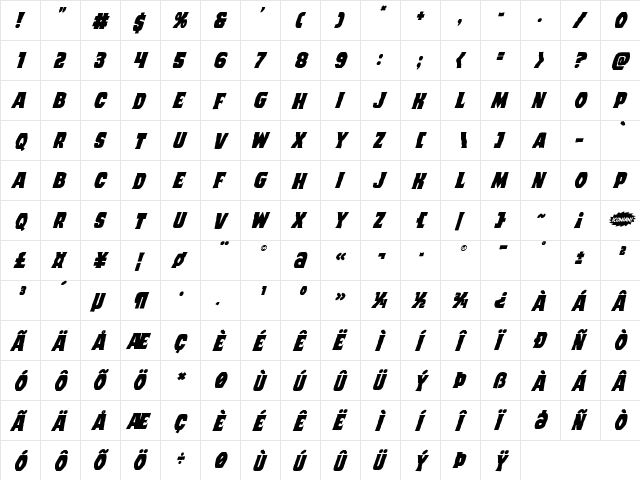
Dusk Demon Super-Italic Regular
Design Context for Dusk Demon Super-Italic Typeface
Dusk Demon Super-Italic is a composed and adaptable typeface that performs quietly and consistently across a wide range of design contexts. Its italic angle brings a sense of urgency and motion to the letterforms.
Pro Tip: Try Dusk Demon Super-Italic for annotation and caption copy alongside an upright companion — the contrast in angle creates a dynamic but ordered typographic system.